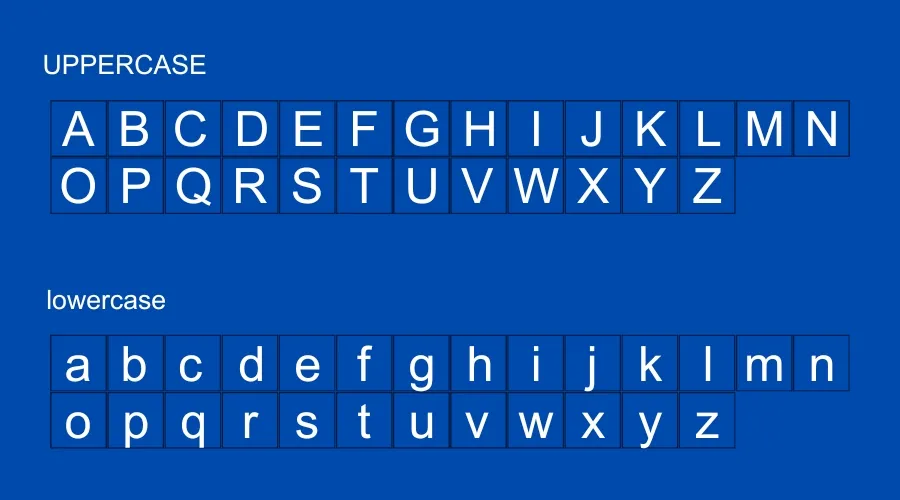
Arial Font
About Arial Font
Microsoft Windows has all the versions of this typeface family from windows 3.1. This typeface was developed by two notable typographic designers known Robin Nicholas and Patricia Saunders and published by Monotype corporation in 1982.
It consists of many weights and styles such as Regular, Italic, Bold Italic, Narrow, Narrow Italic, Extra Bold Italic, Light, Medium, Medium Italic, Bold, Light Italic, Black, Black Italic, Extra Bold, and many more.
The width of this typeface character is the same and the reason for this font setup is to give access to a document created in Helvetica to be printed and displayed with the page breaks and line breaks without permission from the Helvetica license.